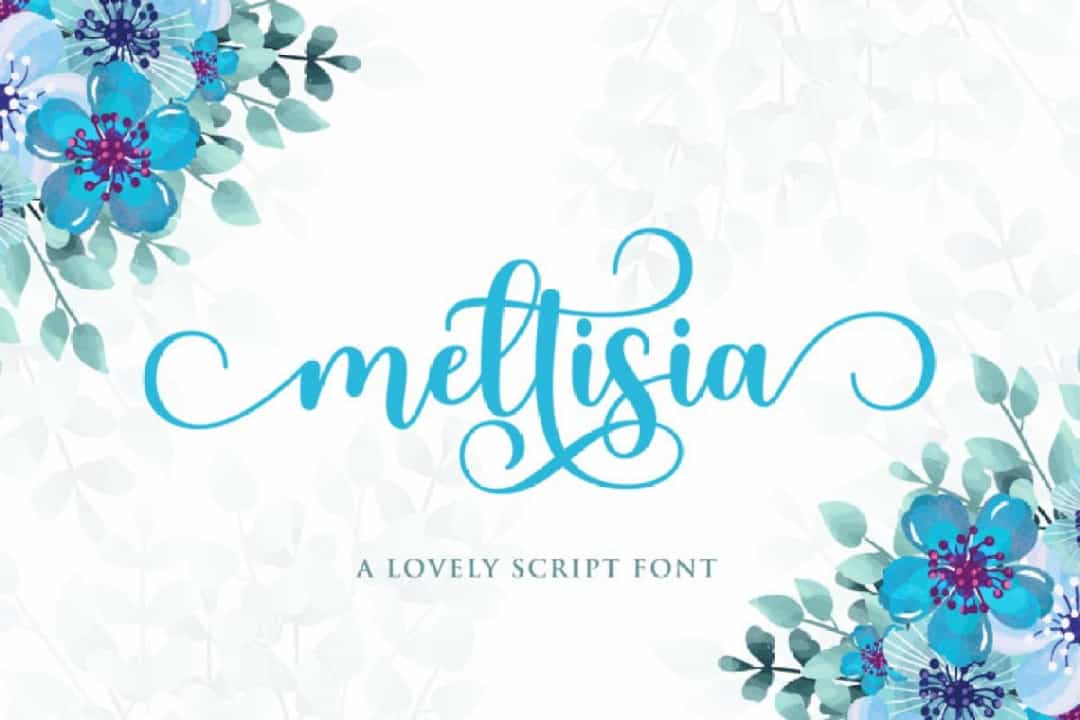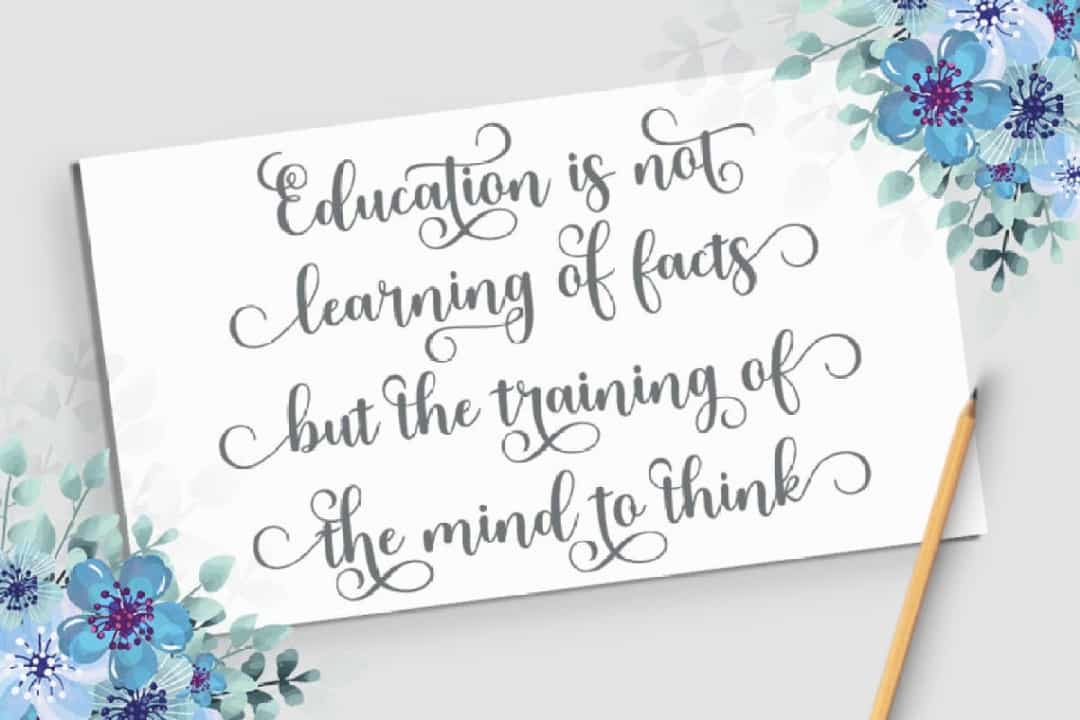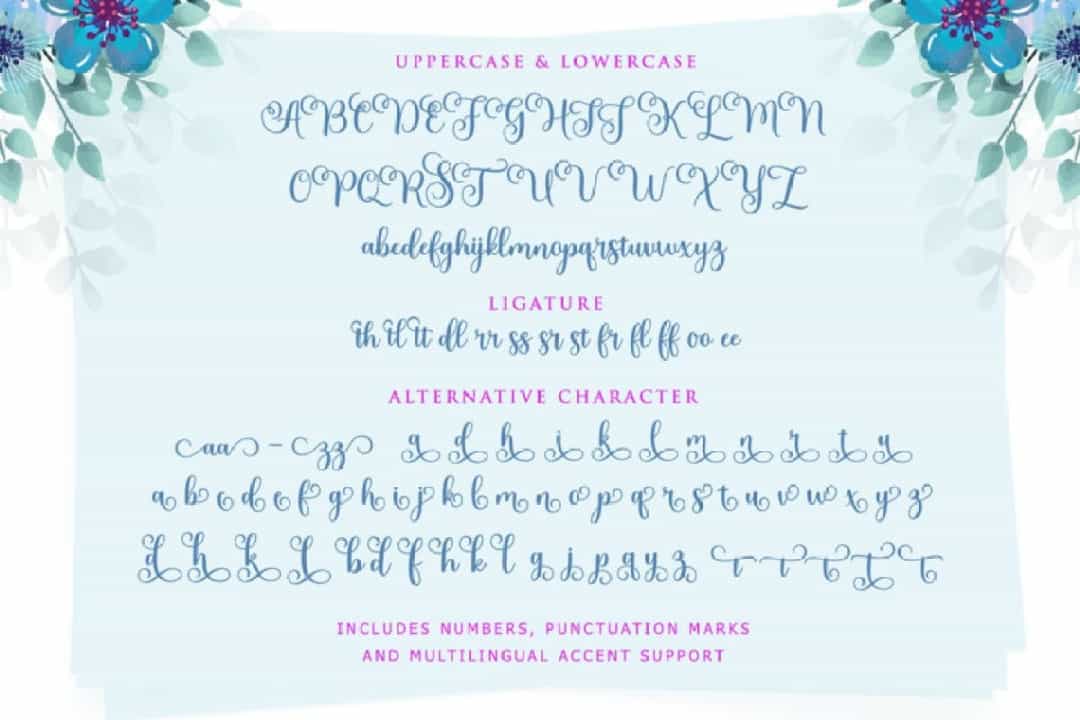
Meltisia is an elegant and romantic calligraphy font with letters that slide at the base which gives it a very sophisticated and at the same time relaxed look. Ideal for creating wedding invitations, logos, letters, headings, T-shirts or badges etc.